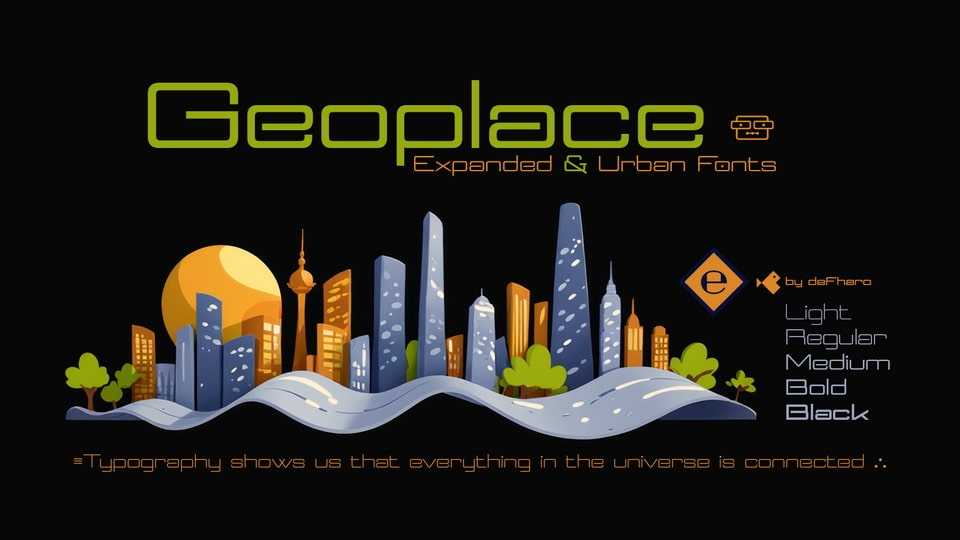
Download Geoplace font, an expanded proportion sans serif typeface family, imbued with futuristic urban style and technological inspiration.
Designer: Fernando Haro